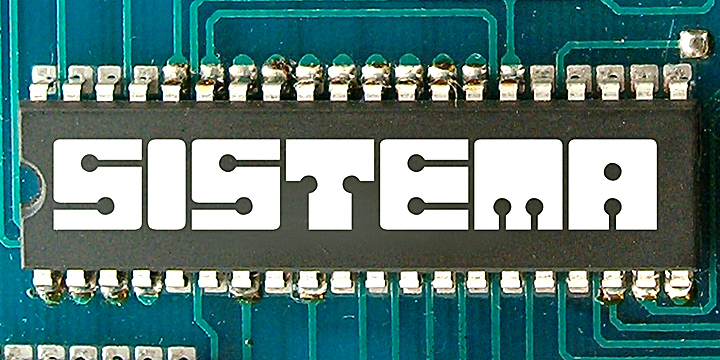
Sistema by Carlos Matteoli is a free techno display font with broad, geometric forms. Rounded corners keep the silhouettes clean and contained. Circuit-like channels cut through the letters, ending in circular nodes that resemble plugs or contact points.
Digital graphics suit its electronic construction. It also suits game interfaces, technology event posters, and music packaging with a synthetic theme. The routed lines can merge with circuit diagrams or interface graphics, making the letters part of the illustration.